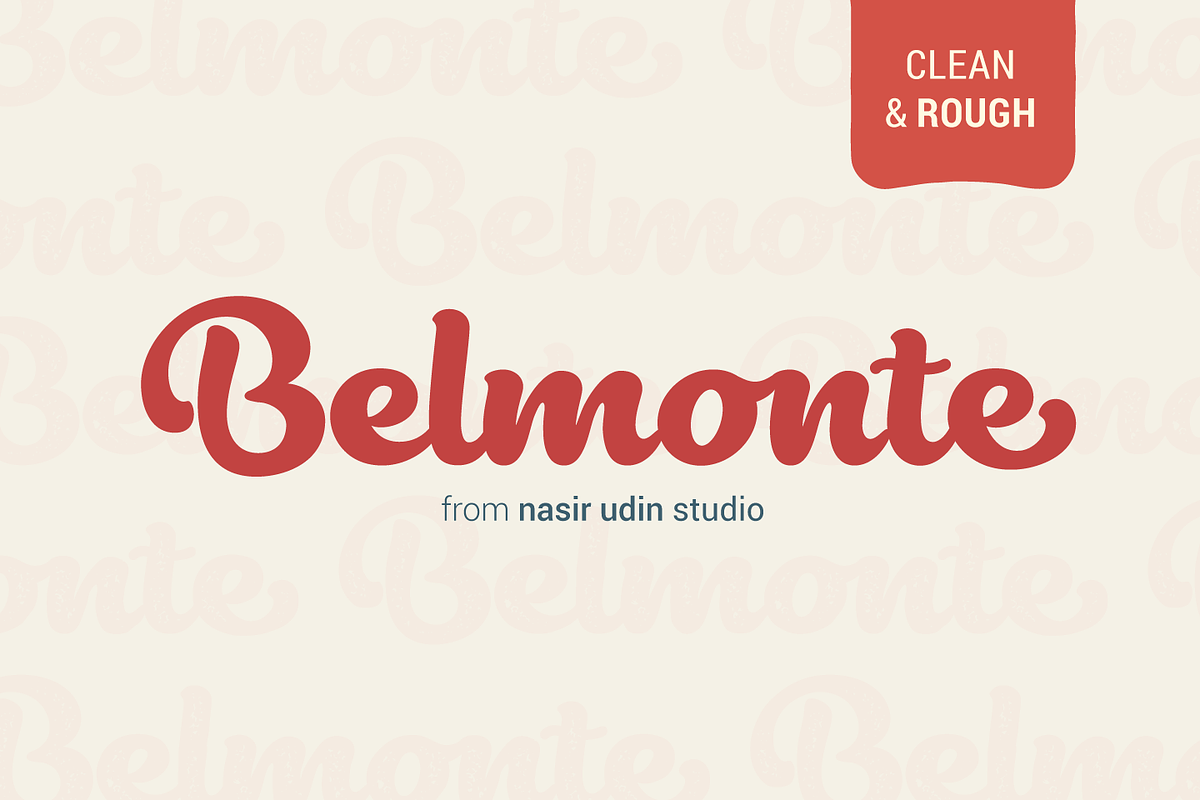
Belmonte Font Free Download is a smooth and stylish script typeface that captures the essence of elegant handwriting with a modern twist. With its flowing curves, delicate swashes, and natural rhythm, Belmonte is perfect for wedding invitations, branding, packaging, and social media graphics. It adds a personal and graceful touch to any design project.
Crafted for readability and beauty, Belmonte Font Free Download offers a wide range of ligatures and stylistic alternates, making it easy to create customized and expressive typography. It’s especially suitable for designs that call for a romantic, feminine, or handcrafted feel, effortlessly elevating your visual identity.